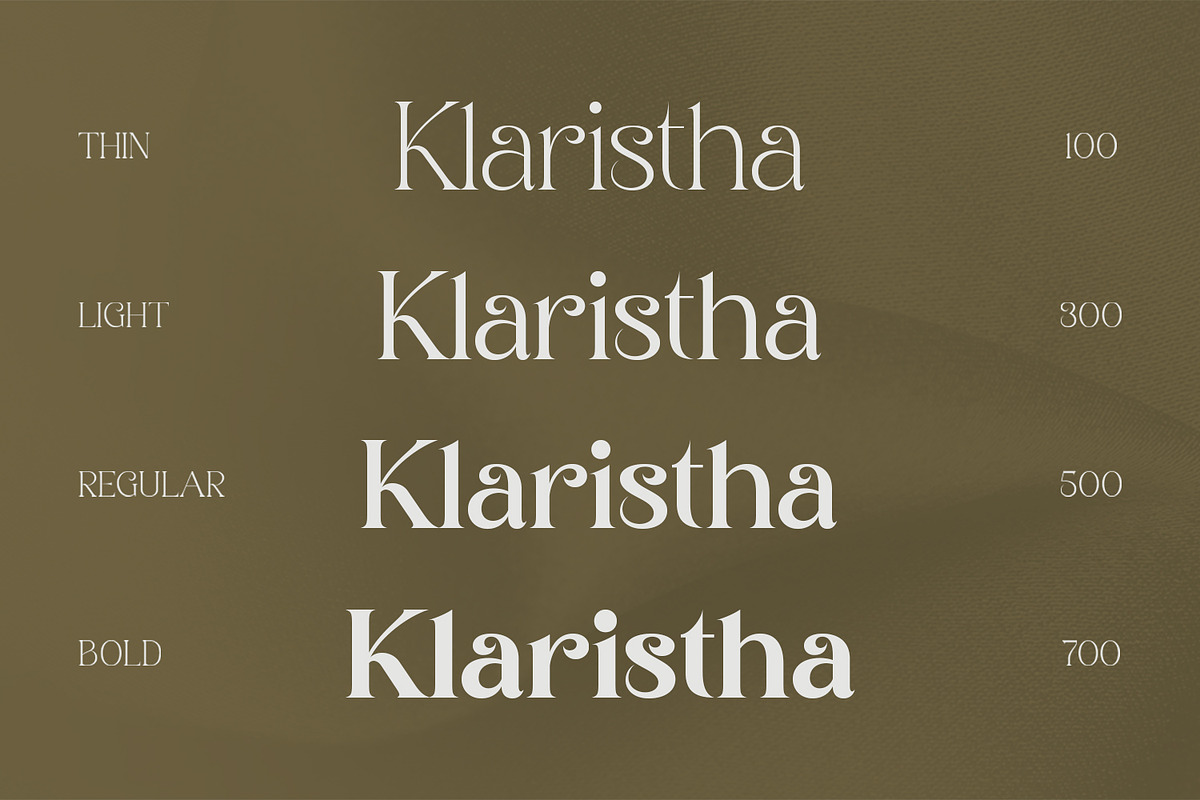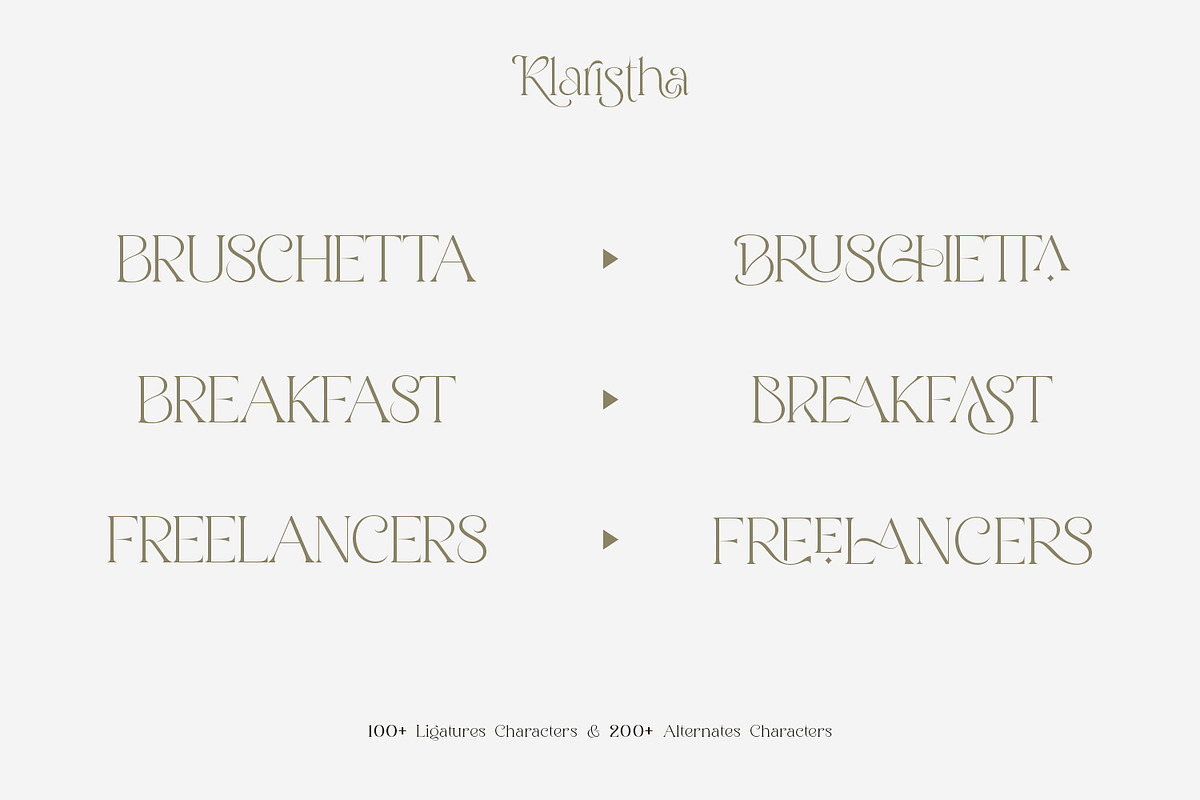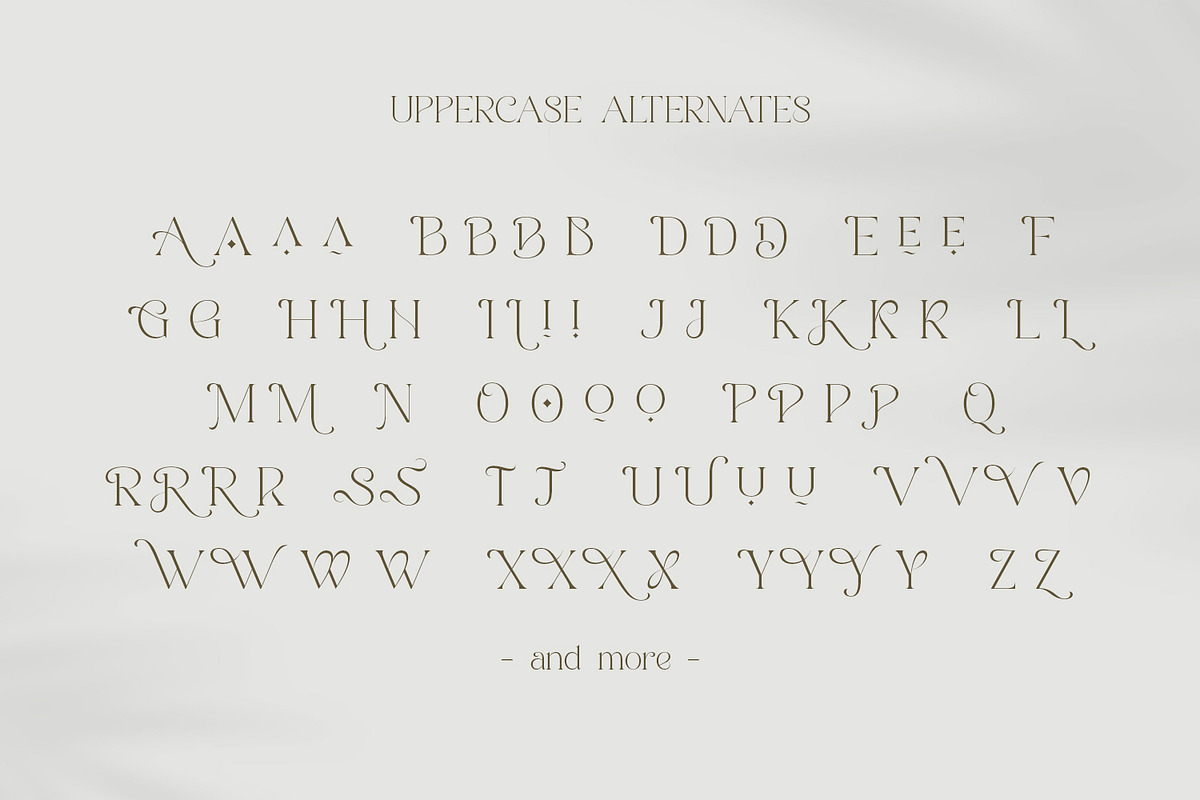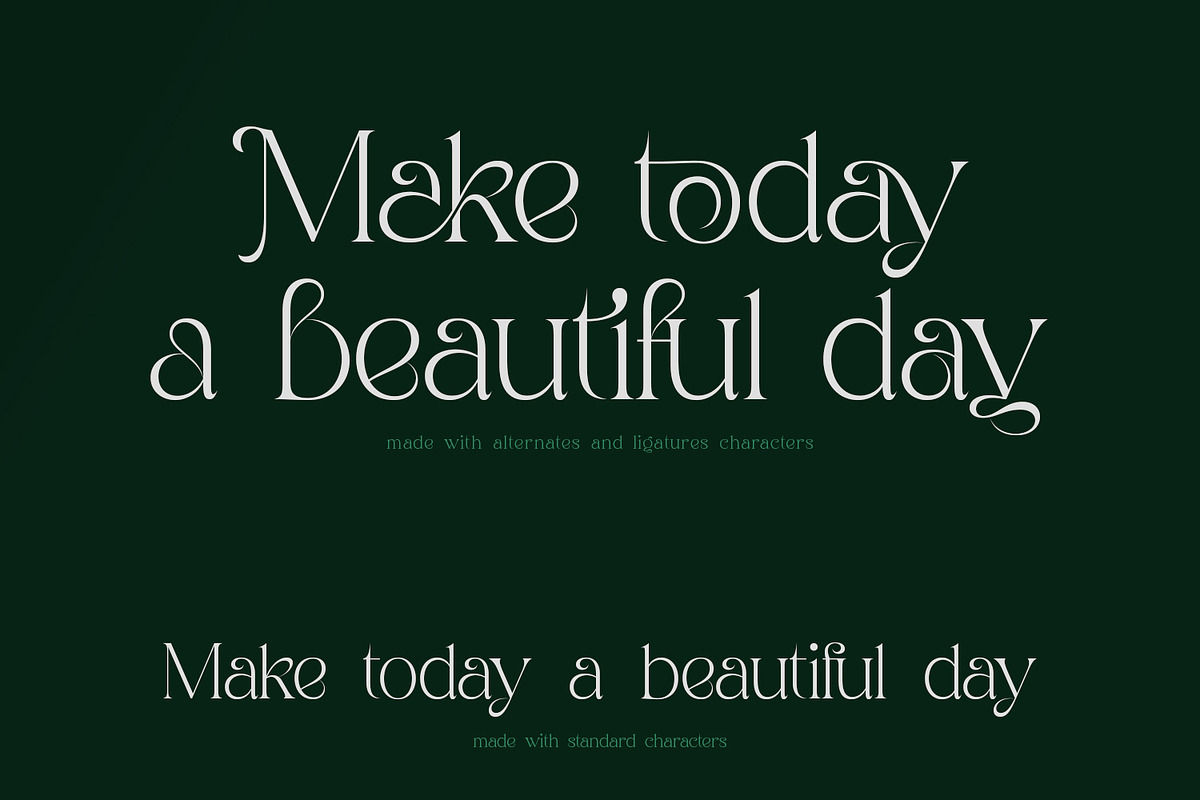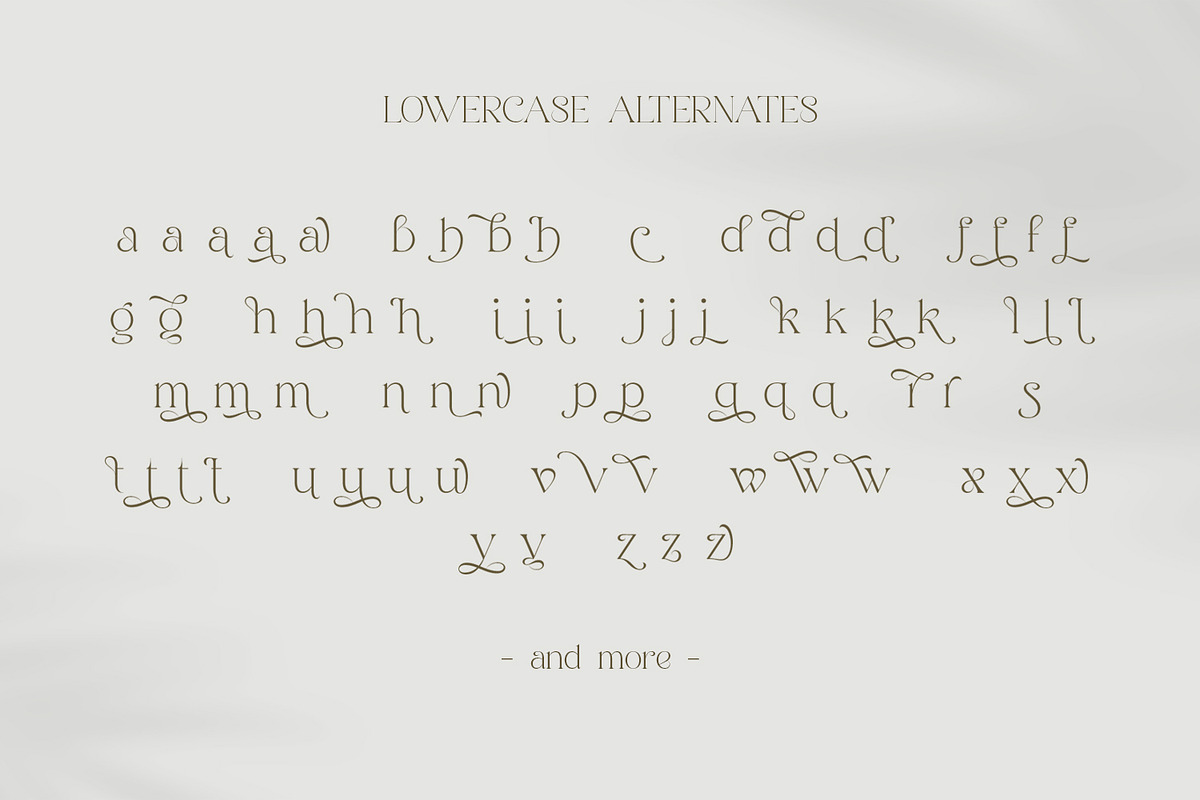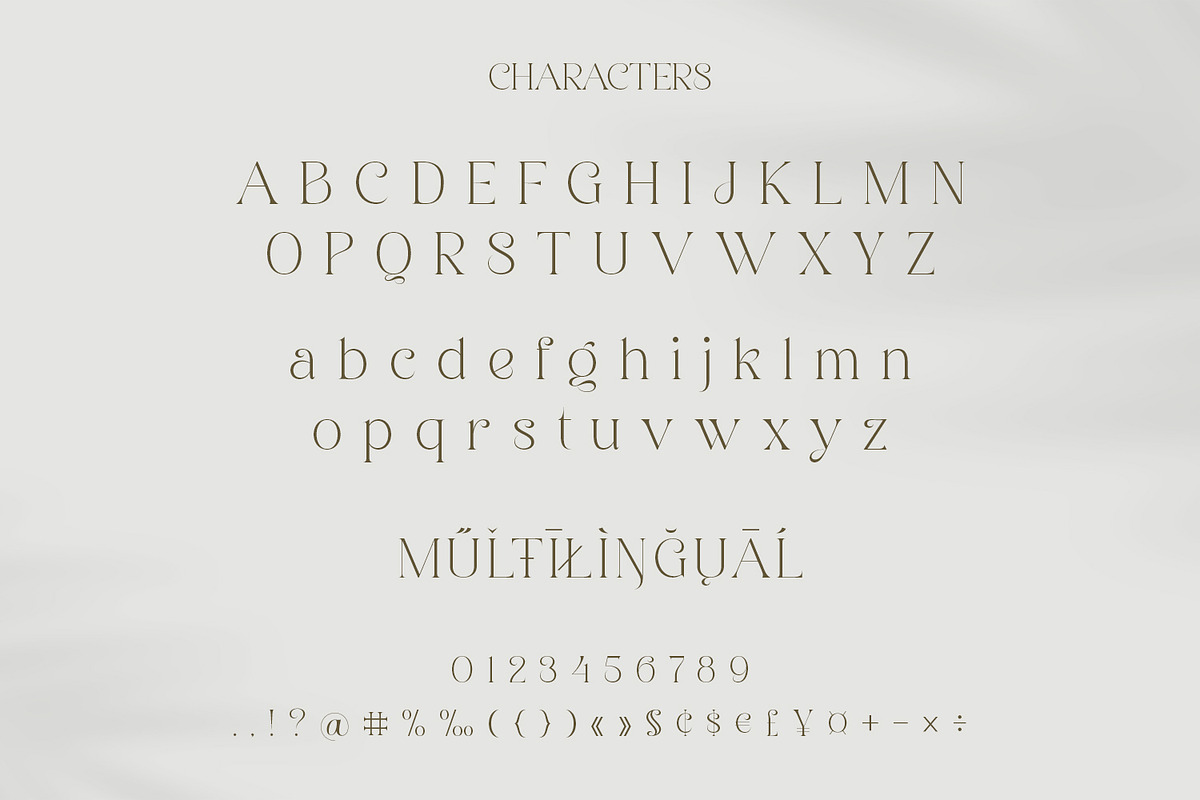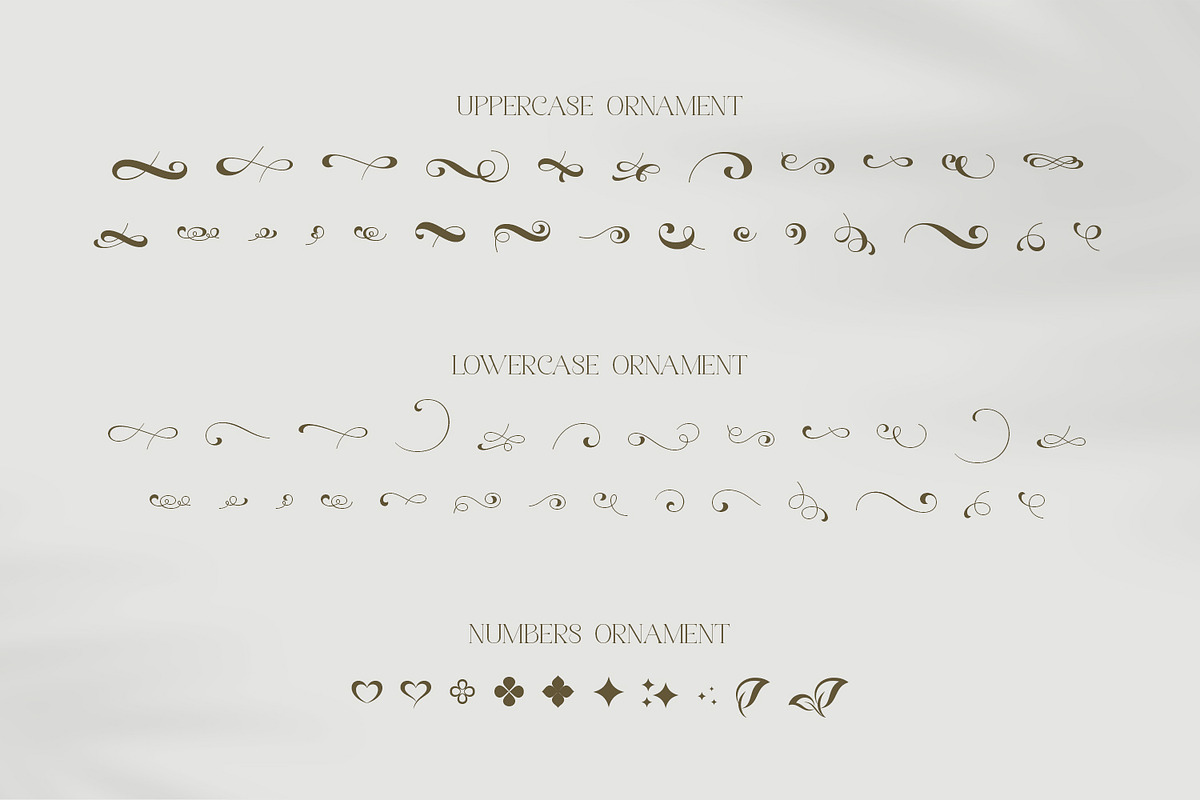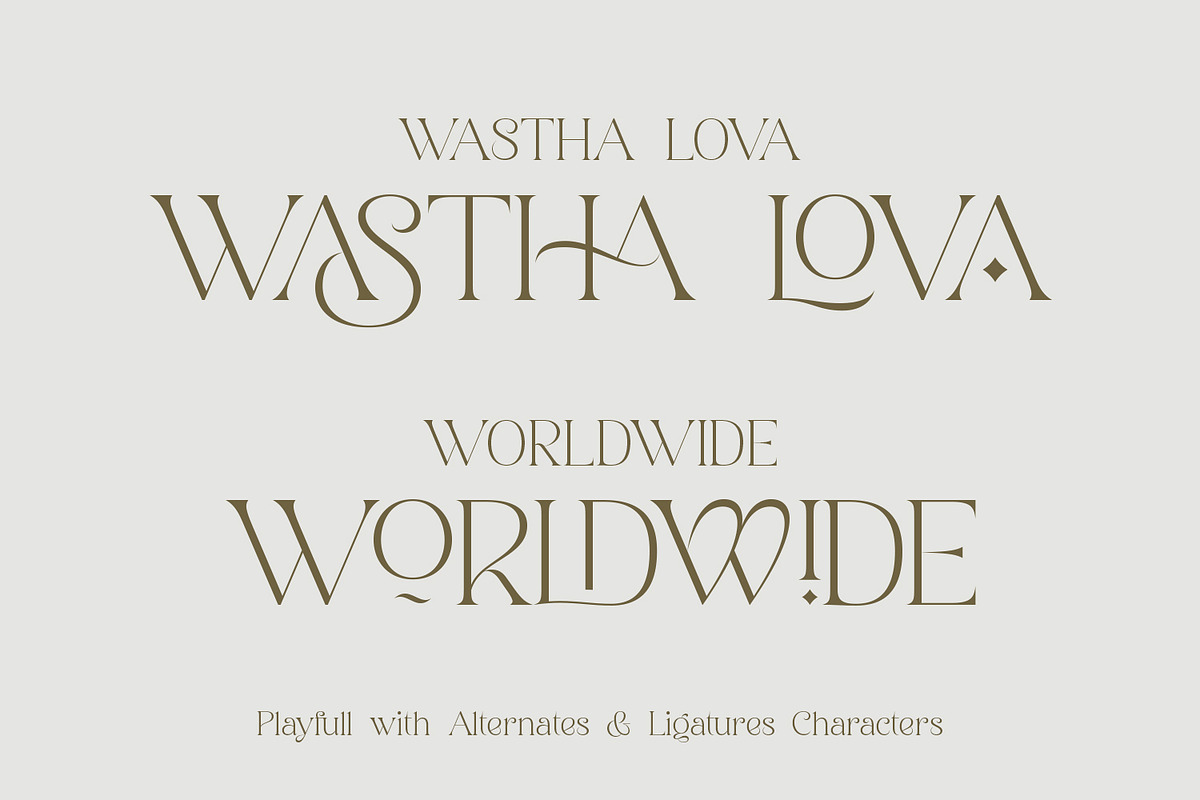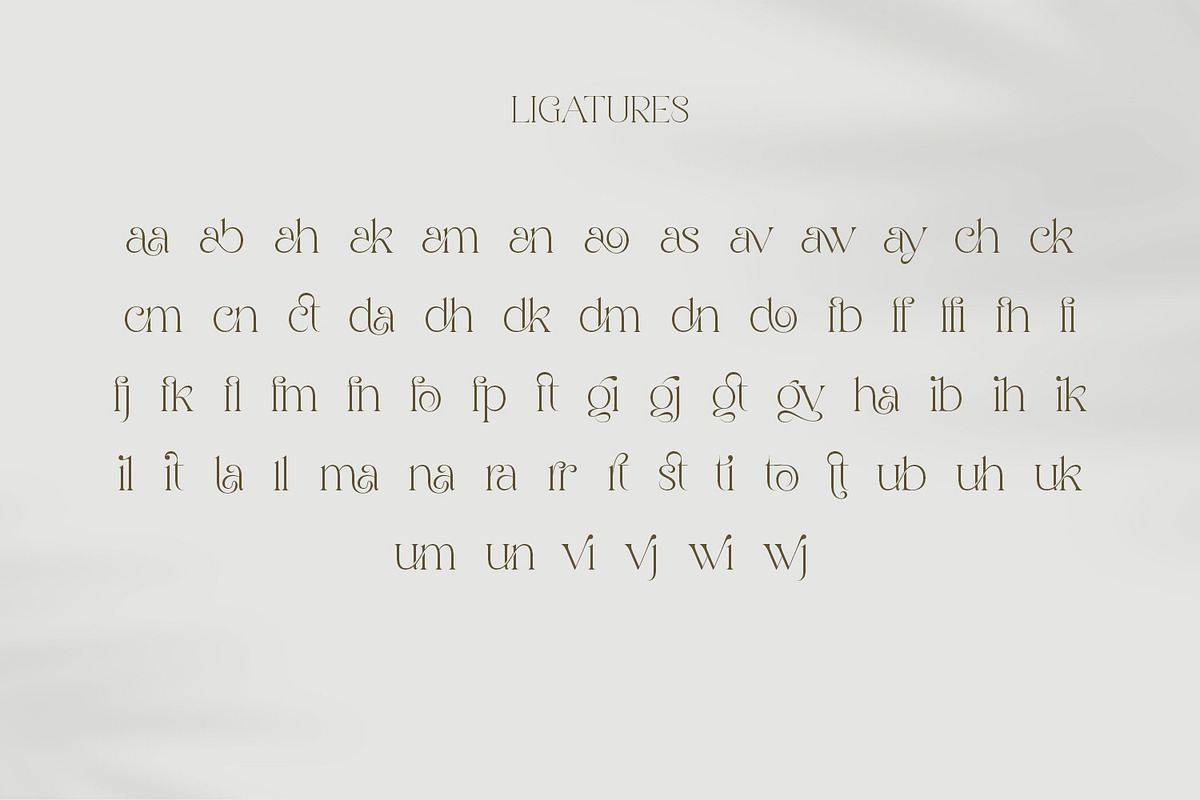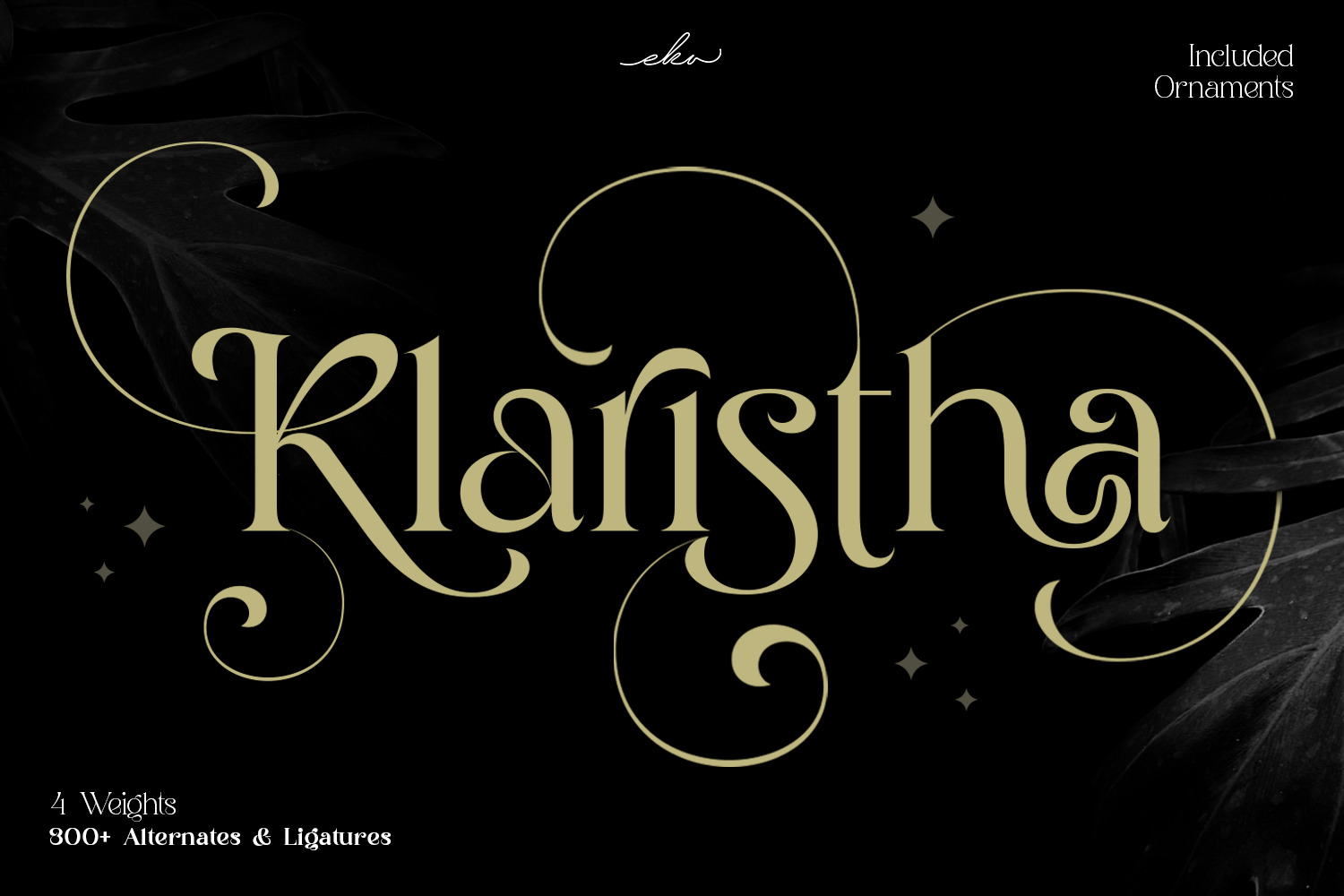
Klaristha - Ornamental Serif Font
Proudly present Klaristha is an elegant and beautiful serif family that consists of 4 weights from thin to bold. Klaristha is specially designed to make your typography design result looks more attractive with tons of ligatures characters and alternates characters. Klaristha also comes with ornaments that will support your creativity in creating design to make it look more stylish and fashionable. Klaristha is a versatile font for many designs projects such as logo design, branding, poster, magazines, labels, merchandise, invitation, presentation, advertising and so much more!